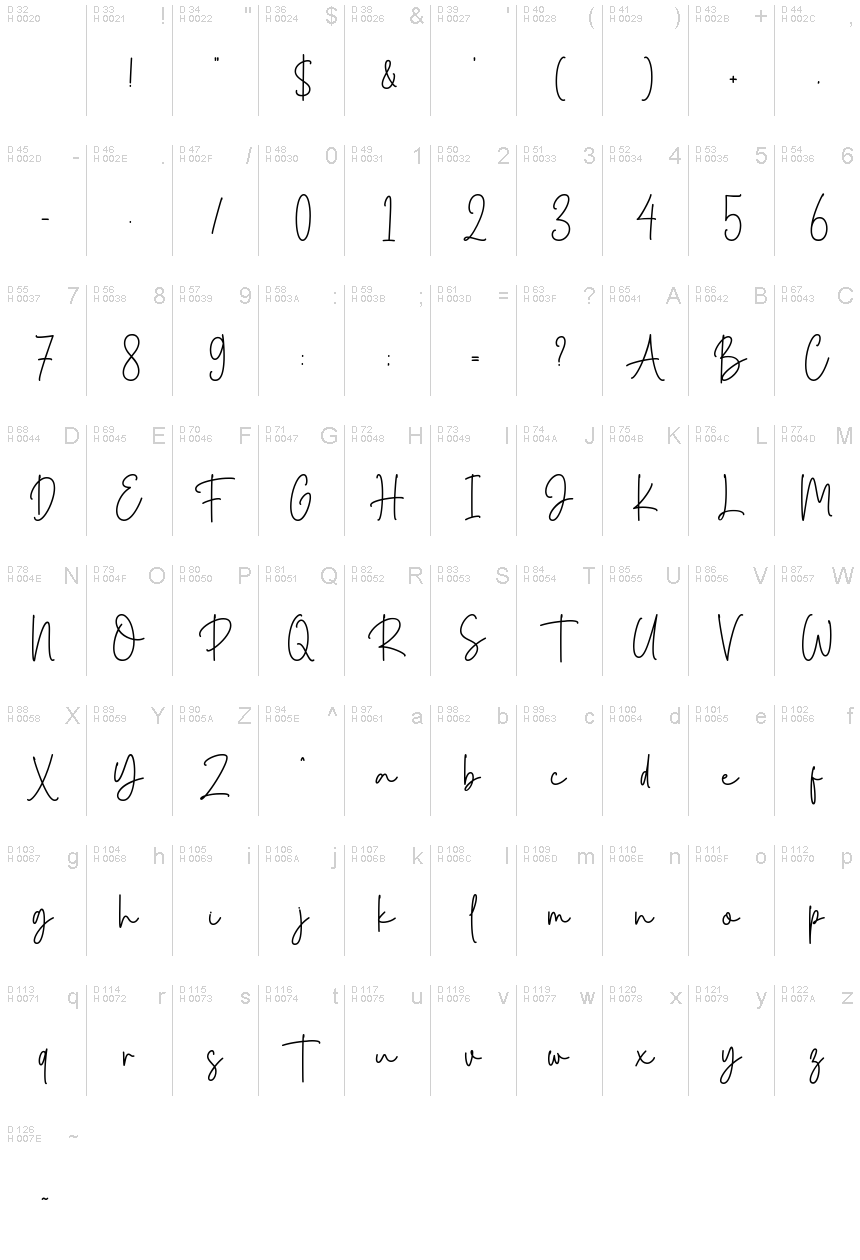
Cottalis Photograph
Cottalis Photograph, created by Rayya Type, is a captivating handwritten font that exudes a sense of effortless elegance. Crafted with a delicate, light touch, this font's intricate strokes and organic flow evoke a compelling sense of natural movement and artistic expression. The subtle variations in line weight and the fluid, interconnected letterforms lend an endearing, personalized quality to the typography, conveying a warm, inviting ambiance.
Cottalis Photograph's versatility shines through, making it a versatile choice for a wide range of design applications. Its informal, handwritten aesthetic can add a touch of charm and character to branding, invitations, stationery, and even editorial layouts. The font's expressive qualities can also be leveraged to create impactful headlines, subheadings, and decorative elements, lending a distinctive, handcrafted feel to any project.